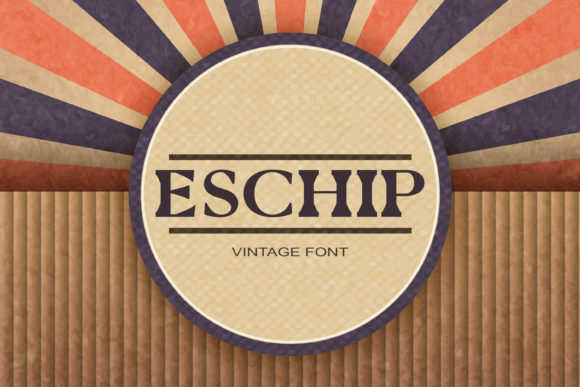
Journey back to the captivating era of the 80s with Eschip Font, a serif font family that harmoniously blends retro typography with a touch of boldness. Created by the talented DmDesignsStoreArt, Eschip Font captures the essence of vintage appeal, evoking a sense of nostalgia and timeless elegance.
Like a well-curated vinyl collection, Eschip Font transports you to a time when music, fashion, and art collided in a vibrant fusion of creativity. Its unique letterforms, reminiscent of classic signage and bold headlines, add a touch of retro charm to your designs, effortlessly evoking the spirit of a bygone era.
Unleash your creativity with Eschip Font's versatility. Whether you're designing logos, posters, social media posts, or website layouts, Eschip Font seamlessly adapts to your vision, adding a touch of sophistication and vintage charm. Its bold strokes and carefully crafted curves command attention, making your words stand out with impact and clarity.
With Eschip Font, you have the power to transform ordinary text into captivating expressions of art. Its distinct character adds a layer of depth and personality to your designs, making them unforgettable and visually striking. Embrace the allure of the past with Eschip Font and let your creativity soar to new heights.